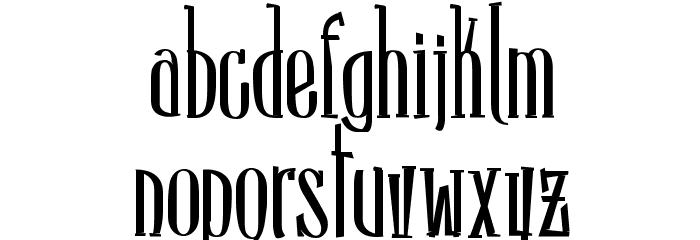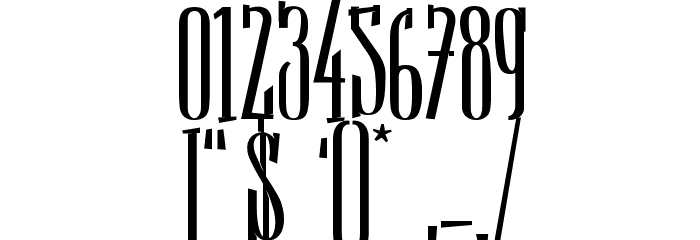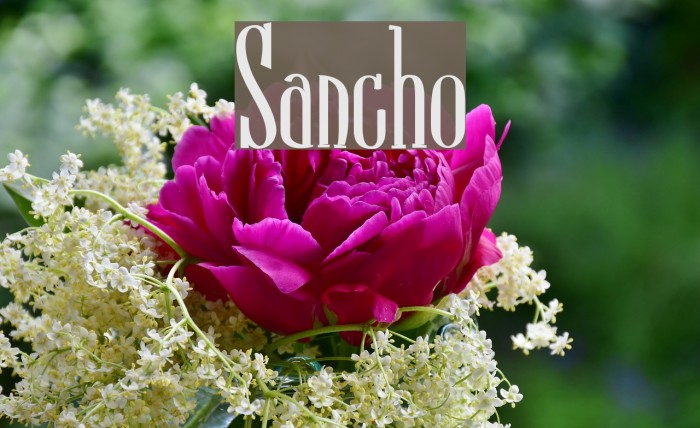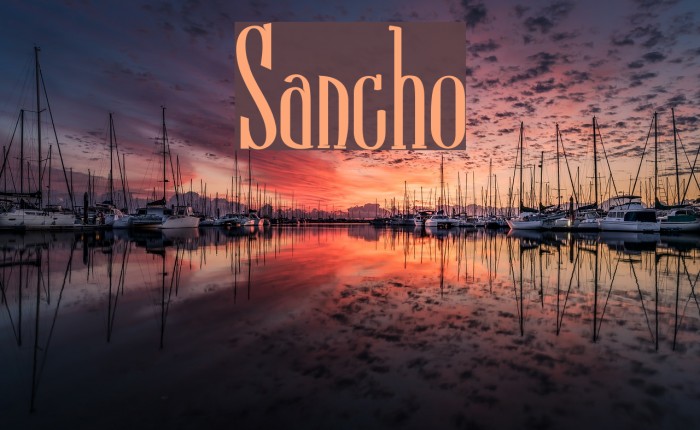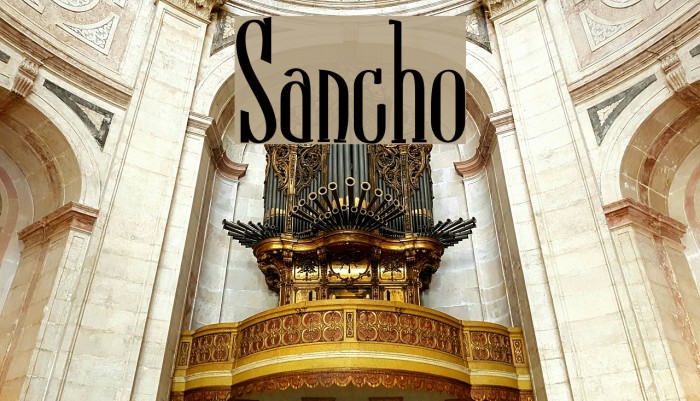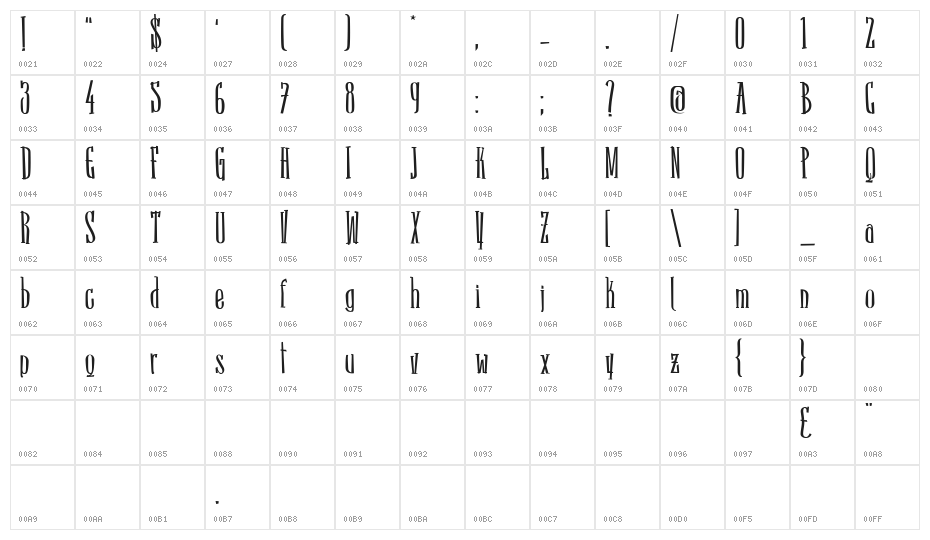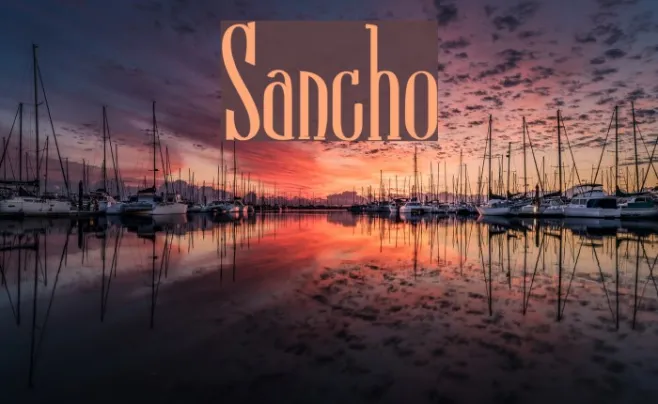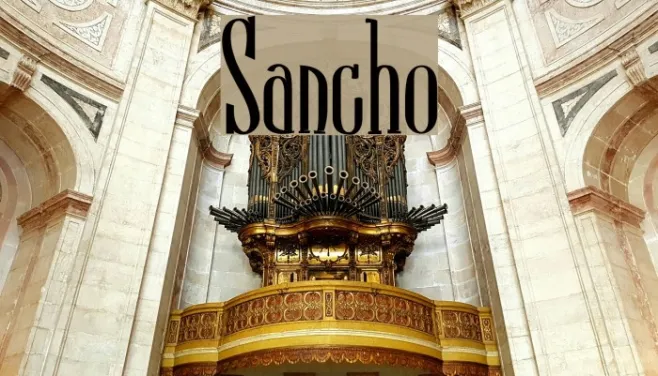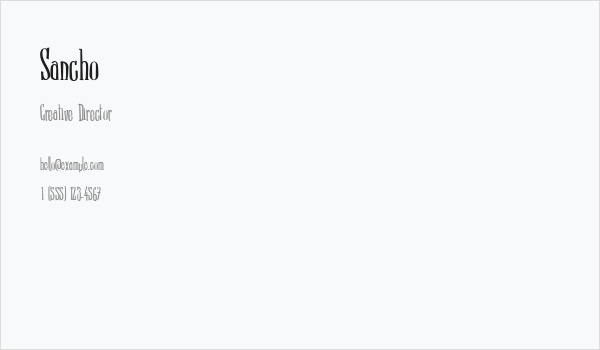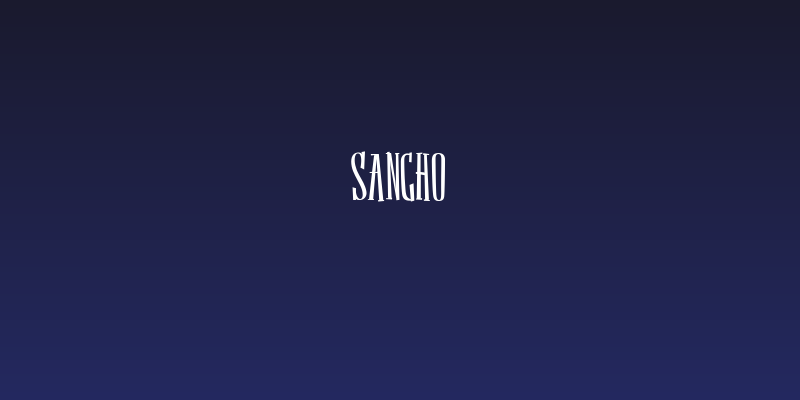
Sancho Font
This font features a tall and narrow design with a distinctively elongated appearance. The characters are vertically stretched, giving them a unique and artistic flair. The strokes are consistent in width, contributing to a clean and modern look. The uppercase letters are particularly striking, with a sense of elegance and sophistication. The lowercase letters maintain the same elongated style, ensuring uniformity across the typeface. Numbers and special characters are designed to match the overall aesthetic, making this font versatile for various applications.
A tall, narrow font with elongated characters and a modern, artistic style.
- Proposed Projects: Ideal for posters, headlines, branding, and any project requiring a distinctive and artistic typeface.